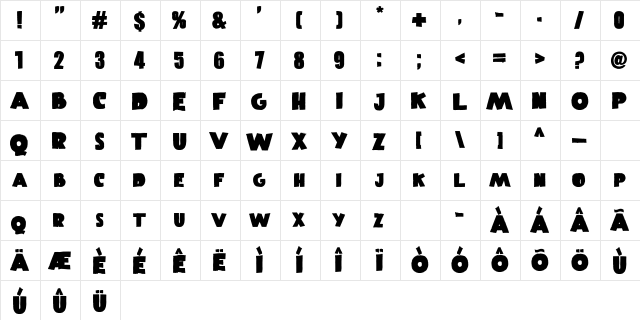
Unicorns Monster Regular
| Designer | Lettersiro 2018 |
Design Context for Unicorns Monster Typeface
Unicorns Monster is a composed and adaptable typeface that performs quietly and consistently across a wide range of design contexts.